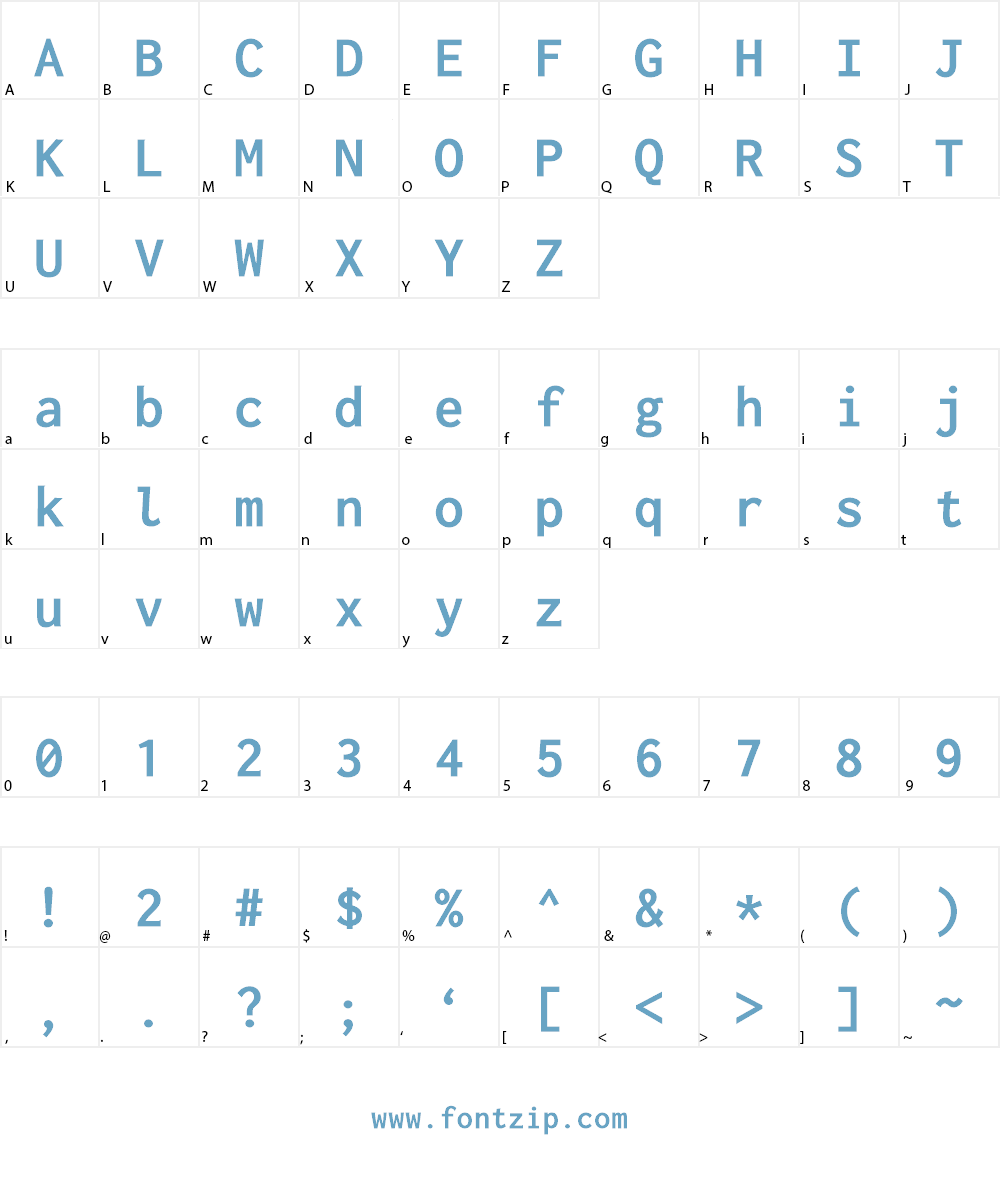
Superb monospaced OpenType font for print, also available in LaTeX with:
\usepackage[varqu,varl]{inconsolata}%
This is a variant of the Teχ variant of Raph Levien’s Inconsolata font, with upright ASCII quotes (‘'’ and ‘"’), a ‘l’ minuscle distinguishable from ‘I’/‘1’, and, most importantly, a digit zero (‘0’) with a stroke correctly through it from bottom-left to top-right.
I’ve created this font, as a derivative (for which I am the copyright holder) under a different font family name (“Inconsolata zi4(varl,varqu)”) following the OFL, in order to be able to use the same monospaced font I use in LaTeX documents in other applications that support TrueType fonts but not the OpenType features needed to enable the ss0x tables in the original font (such as MuseScore and OpenOffice/LibreOffice). I’ve also fixed some minor bugs in the fonts.